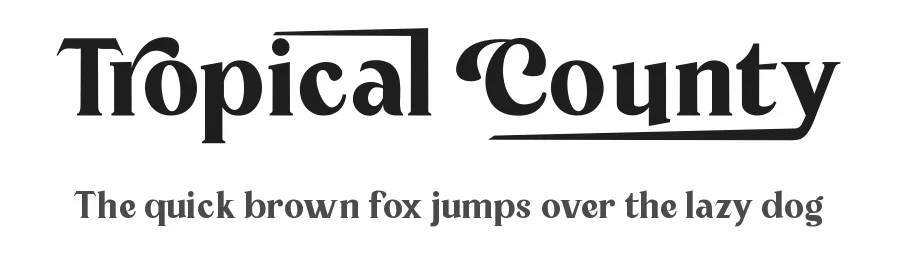
About Bergante Font
Bergante Specifications
| Font Family | Bergante |
| Full Name | Bergante Italic |
| Glyph Count | 252 glyphs |
| PostScript Name | Bergante-Italic |
Bergante ships with 2 OpenType features you can switch on in apps that support them (Illustrator, InDesign, Affinity, Figma, CSS font-feature-settings).
Bergante supports 217 languages.
Bergante Font is a versatile serif font that works for both headings and body text. Pair it with a contrasting sans-serif or slab serif font to add visual interest and a clear distinction between titles and body copy.